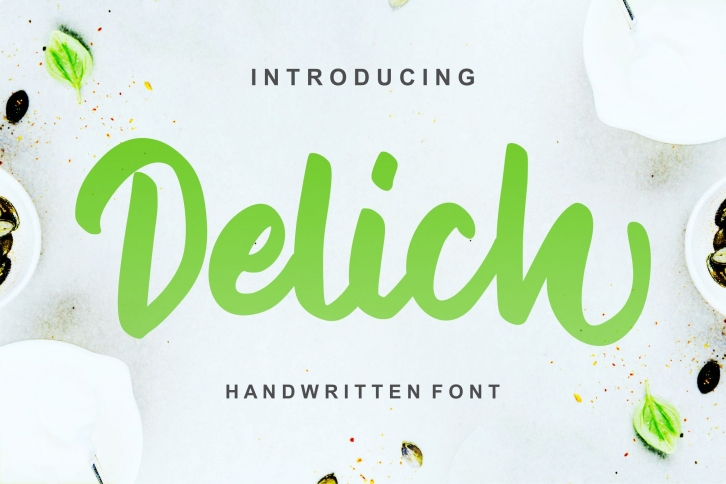
Delich | Handwritten Script Font with a calligraphy style, So beautiful on invitation like greeting cards, branding materials, business cards, quotes, posters, and more!
- Alternates and Ligatures